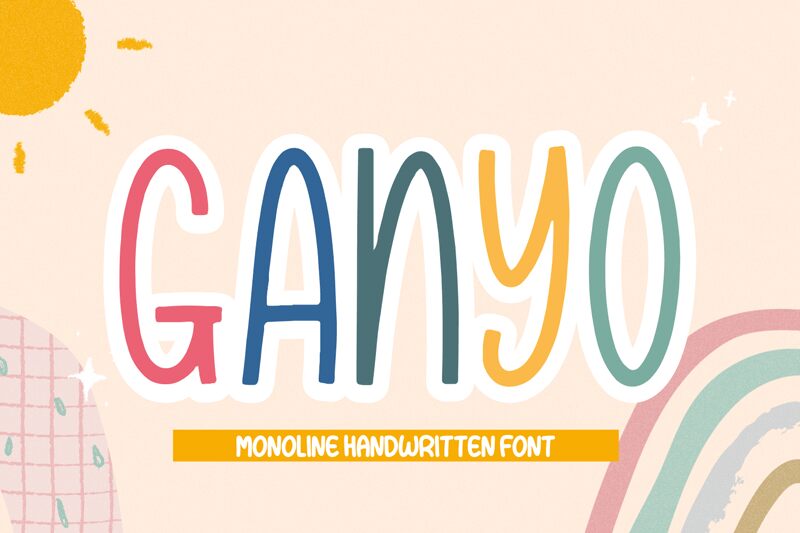
Ganyo, a playful handwritten font crafted by Forberas Club, exudes a vibrant and energetic aesthetic. Its condensed width lends an engaging flair, inviting the reader's attention. The organic, free-flowing strokes seamlessly blend together, creating a sense of movement and liveliness. Ganyo's whimsical nature captivates, making it a compelling choice for projects seeking a touch of personality and charm.
This versatile font can elevate a variety of design projects, from branding and packaging to invitations and social media content. Its playful yet legible style makes it an excellent option for adding a personal touch to marketing materials, event collateral, or even creative writing. Ganyo's versatility ensures it can effortlessly adapt to diverse design contexts, providing a distinctive and engaging typographic solution.
Ganyo